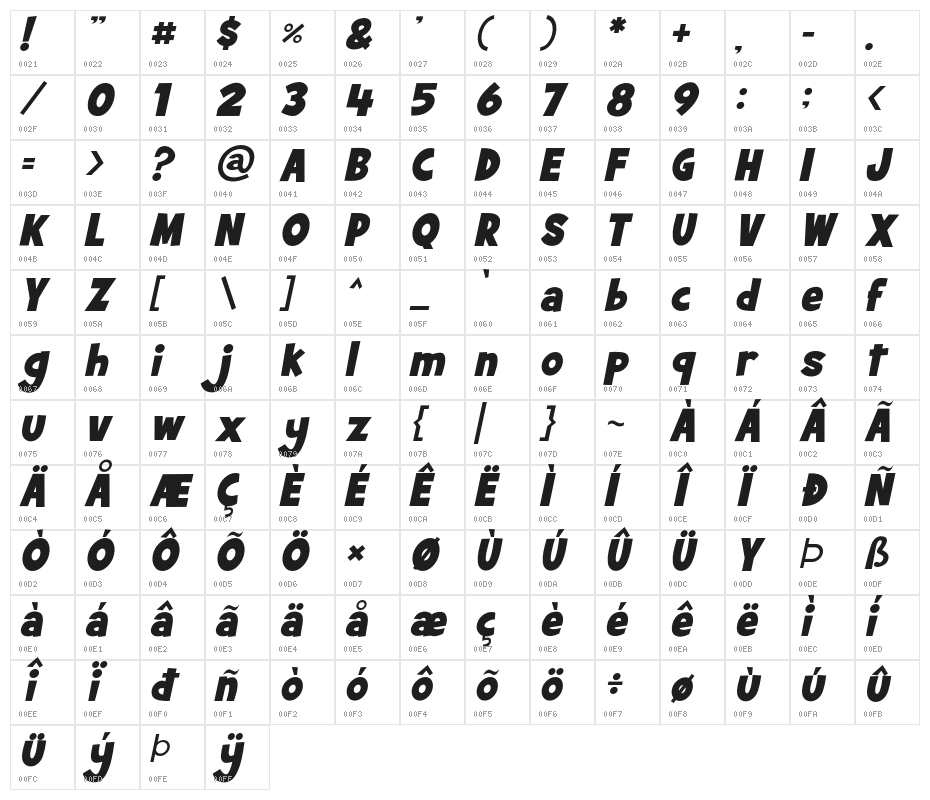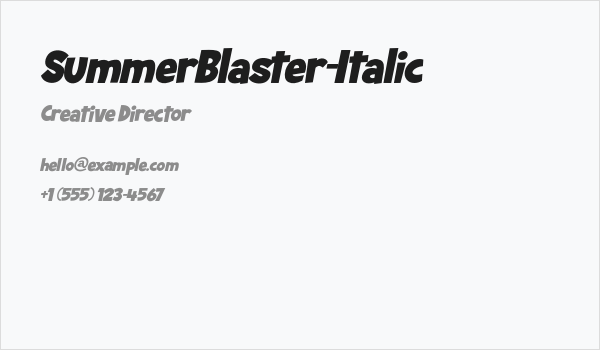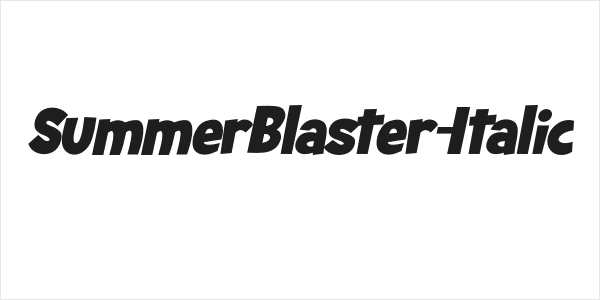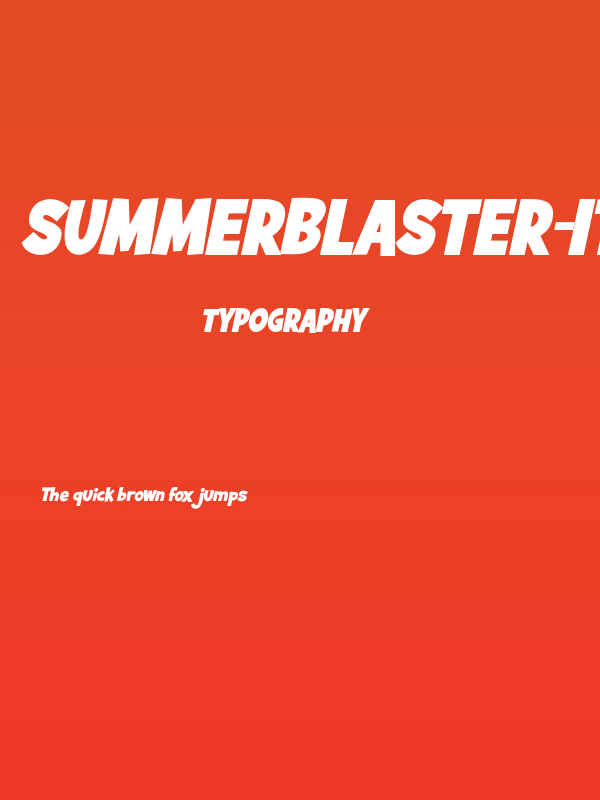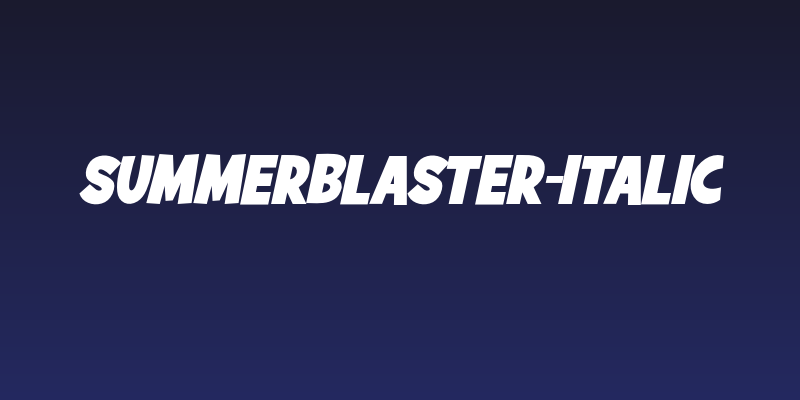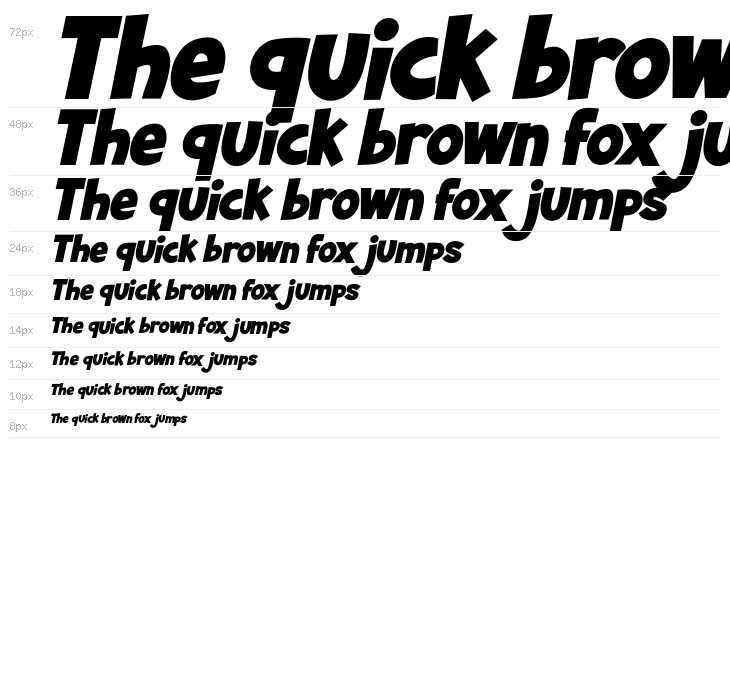
SummerBlaster-Italic Font
SummerBlaster-Italic Description
This font features a bold and dynamic style, characterized by its italicized and forward-leaning letters. The strokes are thick and consistent, giving it a strong presence. The uppercase and lowercase letters maintain a cohesive look, with rounded edges that add a touch of playfulness. The numbers and special characters follow the same bold and slanted design, ensuring uniformity across all glyphs. This font is designed to capture attention and convey a sense of energy and movement.
| Proposed Projects | Ideal for posters, headlines, branding materials, and any project that requires a bold and energetic typeface. |